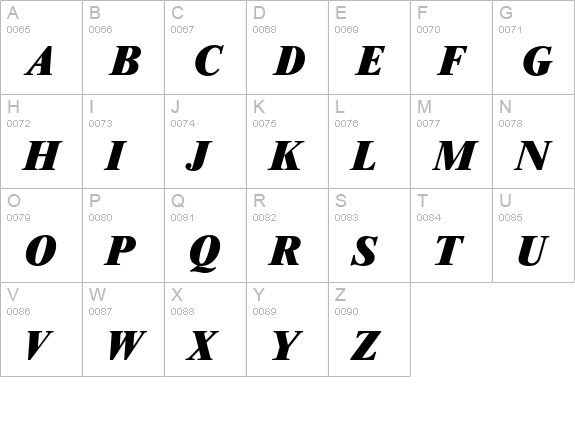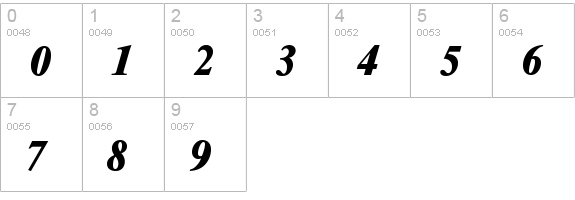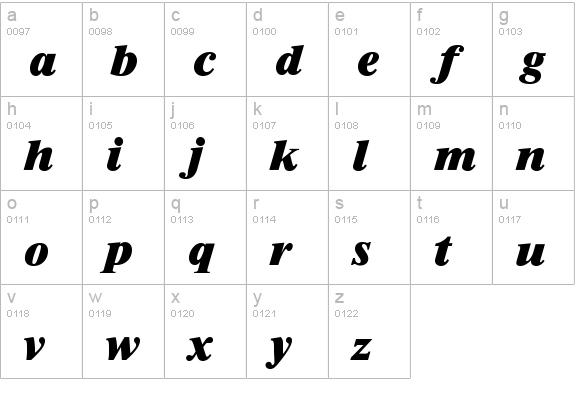
Riccione-ExtraBoldIta is a captivating and bold font that exudes confidence and modernity. This free font showcases a unique combination of strength and elegance, making it perfect for eye-catching headlines, logos, and branding projects. With its well-defined and thick letterforms, Riccione-ExtraBoldIta demands attention and leaves a lasting impression on any design. Its distinctive style is ideal for conveying a sense of power and authority, making it an excellent choice for corporate materials, magazine covers, and advertisements. The versatility of Riccione-ExtraBoldIta extends beyond its boldness, as it also offers an inherent elegance that adds a touch of sophistication to any design. This combination of strength and grace makes it suitable for a wide range of creative projects, from luxury branding to editorial layouts. One of the remarkable aspects of Riccione-ExtraBoldIta is that it is freely available to download at FontsMarket.com. This means that designers and creatives can access this exceptional font without any cost, making it an excellent resource for those looking to add a touch of boldness and style to their projects. Whether you are designing for print or digital media, Riccione-ExtraBoldIta will effortlessly catch the eye and deliver a strong visual impact. Its clean lines and robust letterforms ensure legibility, even at smaller sizes, making it suitable for both headlines and body text. In conclusion, Riccione-ExtraBoldIta is a free font that combines power, elegance, and versatility. Its boldness makes it perfect for making a statement, while its elegance adds a touch of sophistication. Download this exceptional font at FontsMarket.com and unlock its potential to enhance your designs with its unique and captivating style.